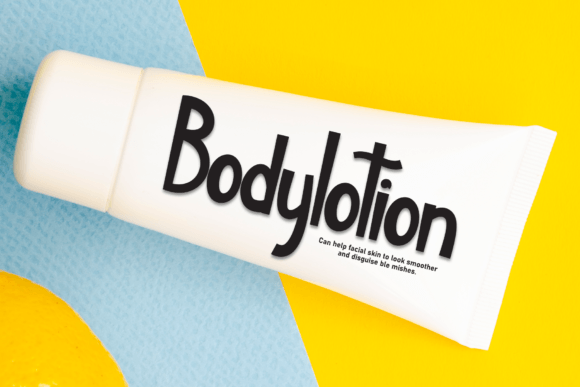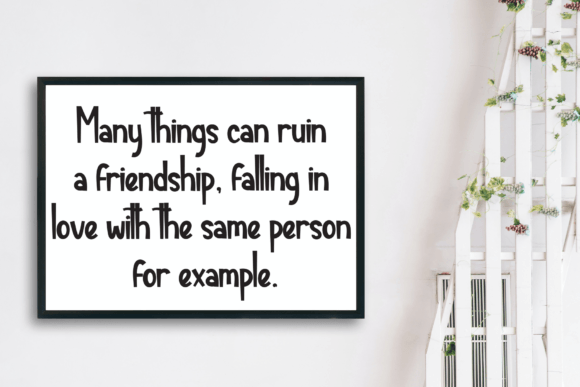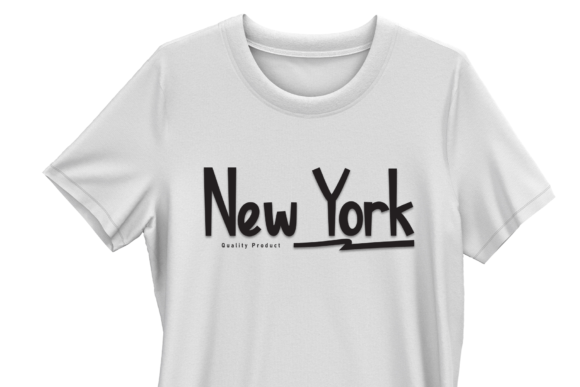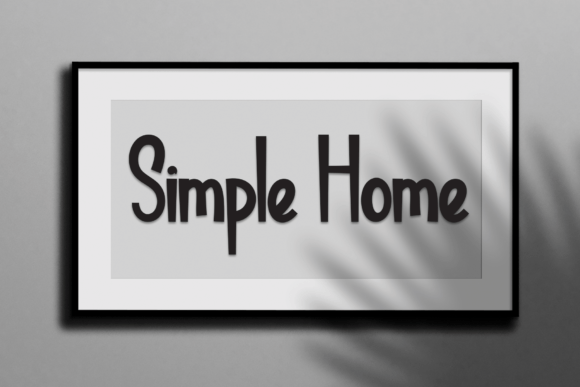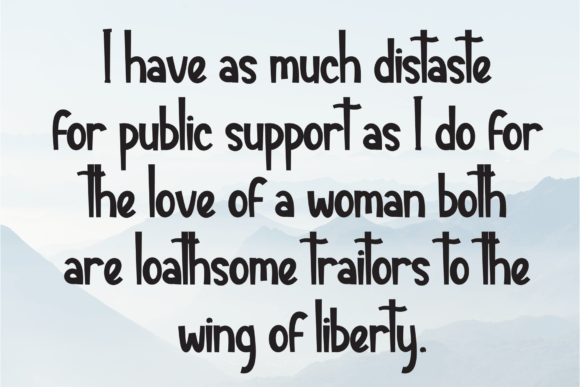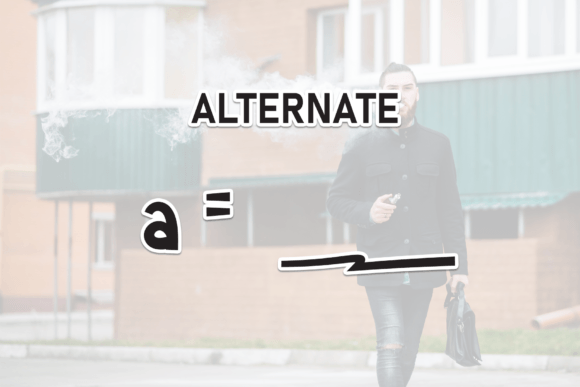
Introduction to Smoking Font Font
Fonts play a crucial role in design, and the Smoking Font font is a typeface that brings both character and versatility to any project. Whether you’re working on a branding project, a website, or a print design, the Smoking Font font offers a unique style that can elevate your work.
Introducing an enchanting handwritten display font dripping with sweetness and charm.
With its delightful and playful nature, this appealing font breathes life into every creation Whether itβs wedding invitations, cherished greeting cards or any design craving for a dash of fun, this font effortlessly infuses an alluring touch that is sure to captivate your audience.
Key Features of Smoking Font Font
Why Choose Smoking Font Font?
The Smoking Font font is more than just a typeface β it’s a design tool that helps you communicate your message with style and clarity. Its unique character set and versatile design make it suitable for a wide range of applications, from elegant invitations to bold headlines.
With its carefully crafted letterforms and balanced proportions, the Smoking Font font ensures readability and visual appeal across all mediums.
What makes Smoking Font font special?
The Smoking Font font stands out with its unique design, exceptional readability, and versatility across various design applications.